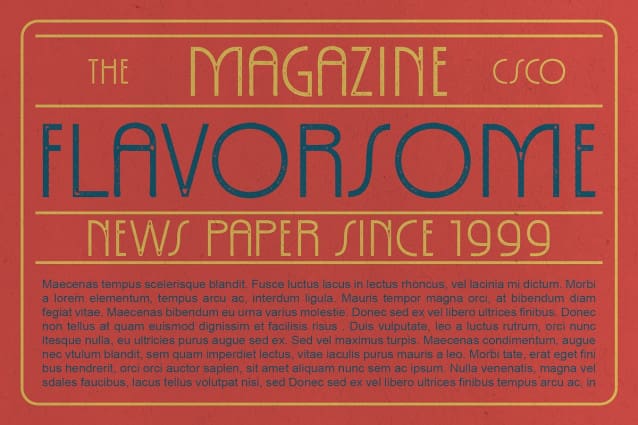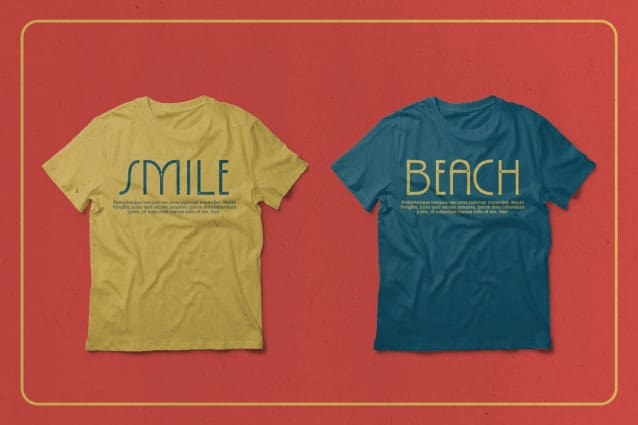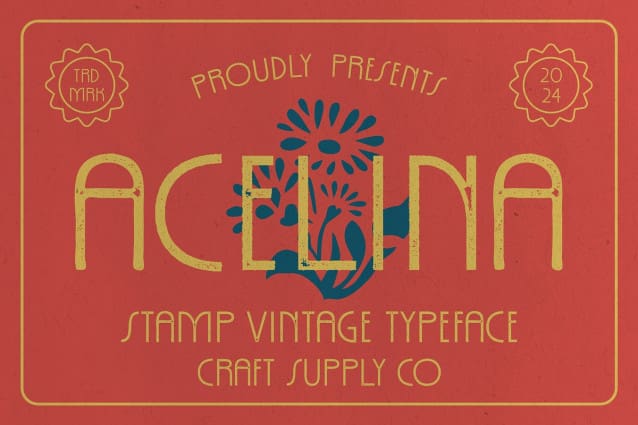
Acelina Stamp Font
Acelina Stamp Font: Retro Charm in Geometric Sans Serif. Art Deco Inspiration Acelina Stamp draws inspiration from the iconic Art Deco movement, featuring sleek geometric shapes reminiscent of the era’s architectural marvels. Its clean lines and bold presence pay homage to the design ethos of the 1920s and 1930s.
Vintage Stamp Effect With its unique stamp effect, This font exudes a vintage allure, adding character and nostalgia to any design project. The distressed textures and worn edges evoke the tactile feel of aged postage stamps, lending an authentic retro vibe display to your creations.
Geometric Elegance The geometric structure of This font exudes elegance and sophistication, making it an ideal choice for impactful headlines and eye-catching signage. Its balanced proportions and sharp angles command attention, while its refined details convey a sense of modern refinement.
Versatile Retro Appeal From posters to packaging, This font offers versatile retro appeal, injecting a touch of timeless style into any creative endeavor. Whether used for branding, advertising, or editorial design, its bold yet refined aesthetic makes a memorable statement, resonating with audiences across various platforms.
Fusion of Retro and Geometric This font seamlessly blends the retro charm of vintage stamp effects with the geometric precision of Art Deco-inspired design. Its versatility and timeless appeal make it a standout choice for designers seeking to infuse their projects with a touch of retro sophistication.